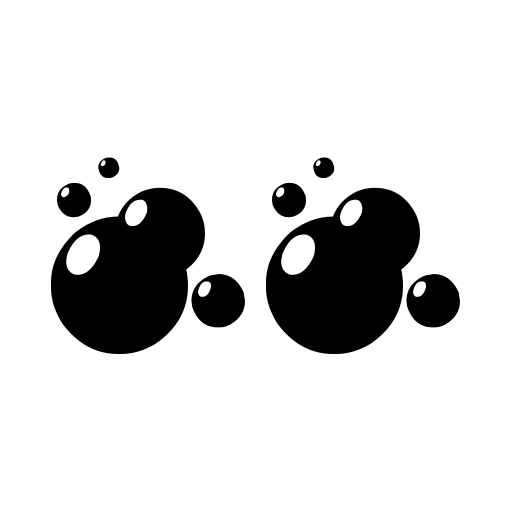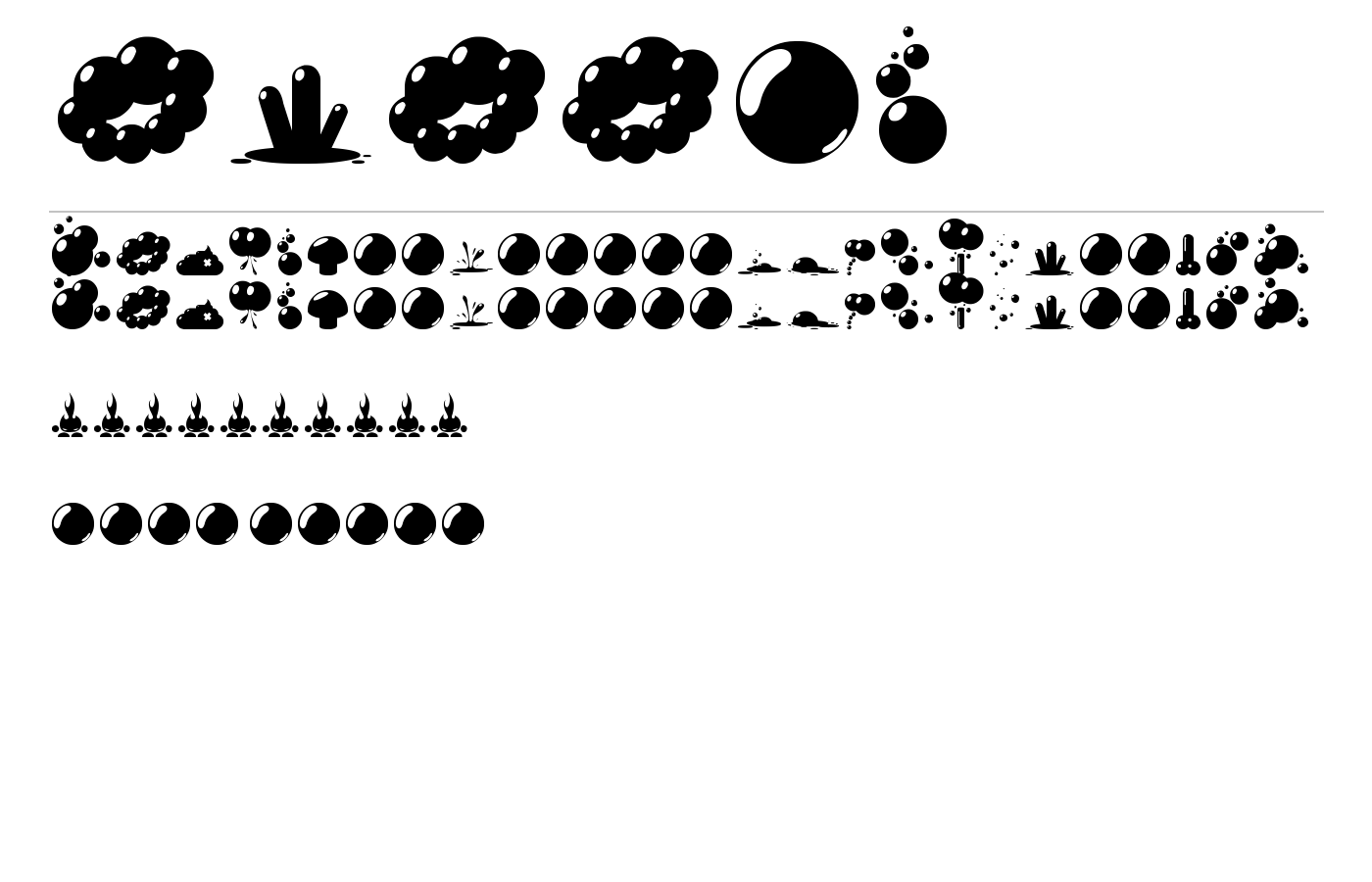
Bubble Font is a playful, decorative typeface characterized by its rounded, glossy shapes that resemble shiny, inflated bubbles. Its heavy weight and soft, whimsical forms with highlights give it a friendly and fun personality, making it perfect for creative projects aimed at children, casual branding, or eye-catching headlines where a lighthearted and bubbly feel is desired. This font works best in display contexts where its unique, cartoon-like style can shine and add a cheerful touch.
bubble Font
About bubble Font